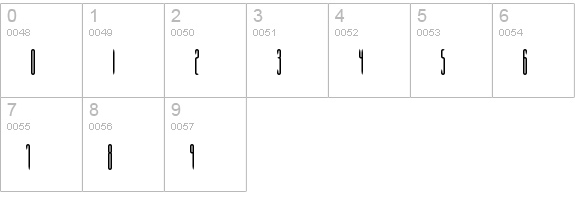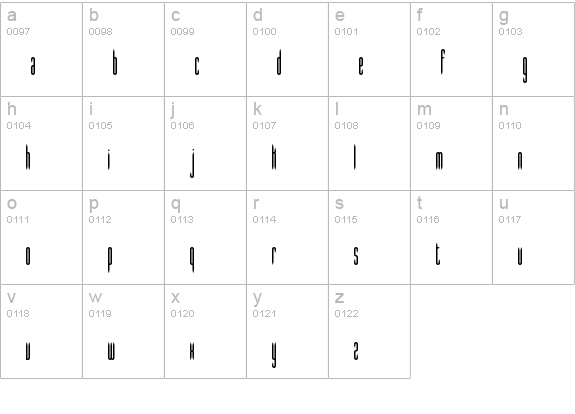
Slender BRK Font Details
Slender BRK font is a modern and sleek typeface that exudes elegance and sophistication. Its slender and elongated letterforms are perfect for adding a touch of refinement to any design project. Whether you're creating a logo, a poster, or a website, Slender BRK font will make your text stand out with its clean lines and unique style. One of the best things about Slender BRK font is that it is completely free. Yes, you read that right – this amazing font can be downloaded for free at FontsMarket.com. It's a fantastic option for designers and creatives who are looking to add a touch of class to their work without breaking the bank. The versatility of Slender BRK font is another reason to love it. With its wide range of weights and styles, you can easily adapt this font to suit any project. Whether you want a bold and impactful headline or a subtle and sophisticated body text, Slender BRK font has got you covered. Not only does Slender BRK font look great on screen, but it also prints beautifully. Its high-quality design ensures that your text will be crisp and clear, whether it's on a digital or physical medium. This font is perfect for creating professional-looking materials such as business cards, brochures, and presentations. So why wait? Start using Slender BRK font today and elevate your design projects to new heights. With its free availability at FontsMarket.com, there's no reason not to give this font a try. Download it now and experience the elegance and versatility of Slender BRK font for yourself.